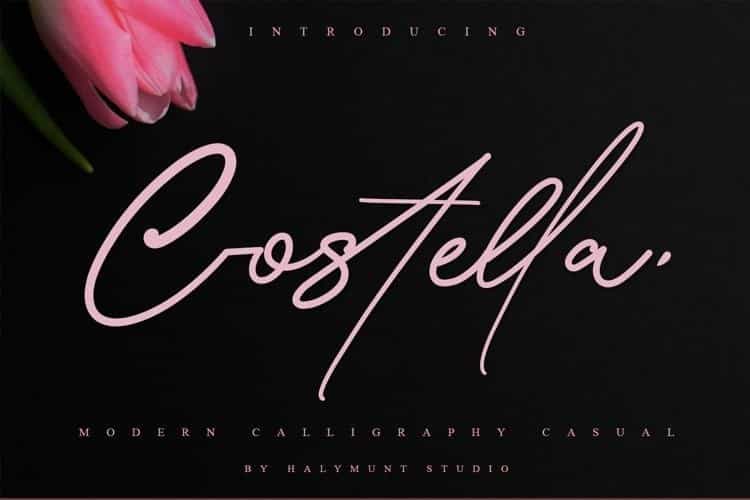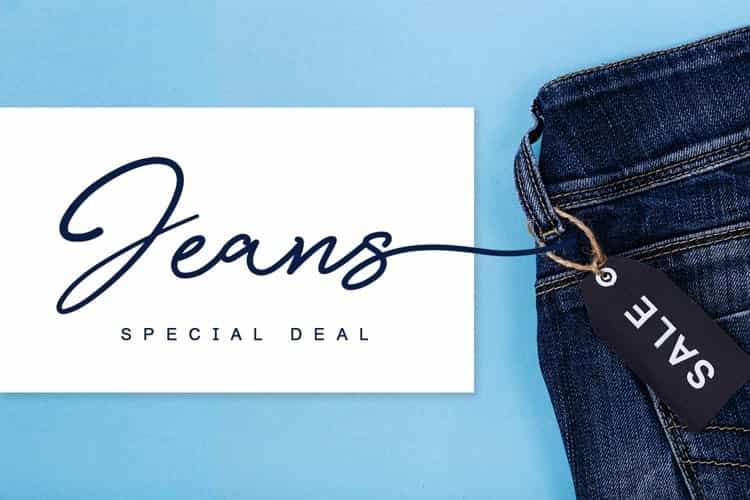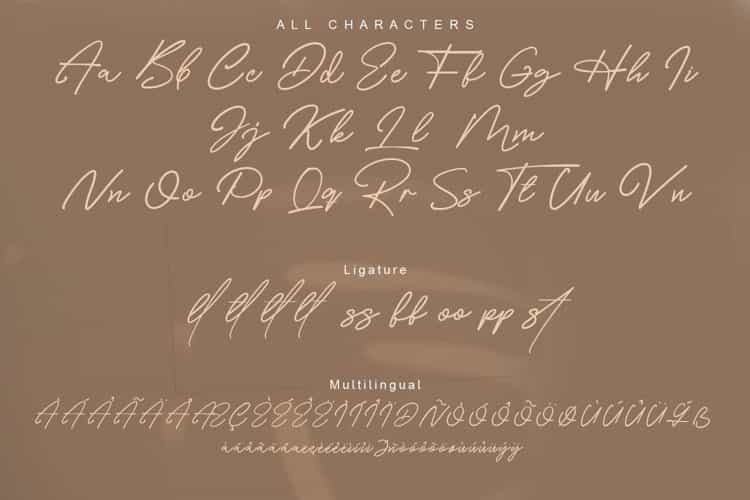
Costella is a beautiful script font with an elegant feeling. This font is a gorgeous combination of classic style as well as authentic Calligraphy. It has a timeless design, yet it retains an easy-going feel. Costella is the ideal font for creating distinctive and striking designs.